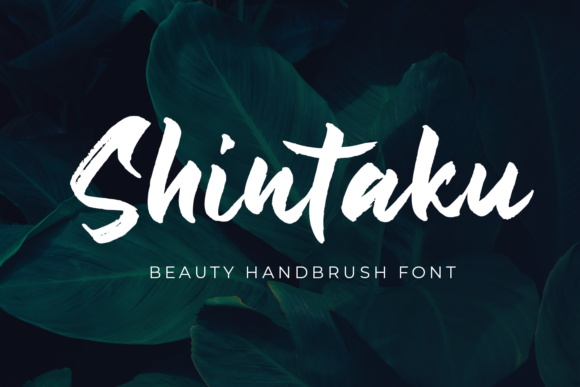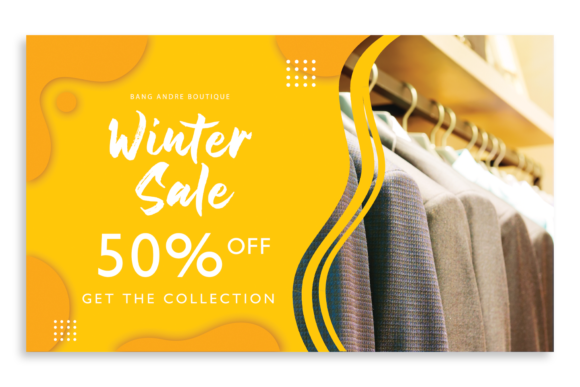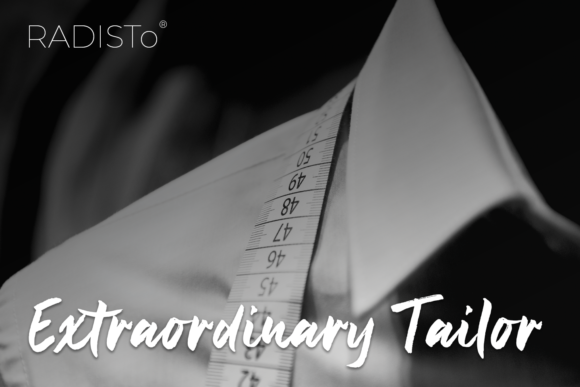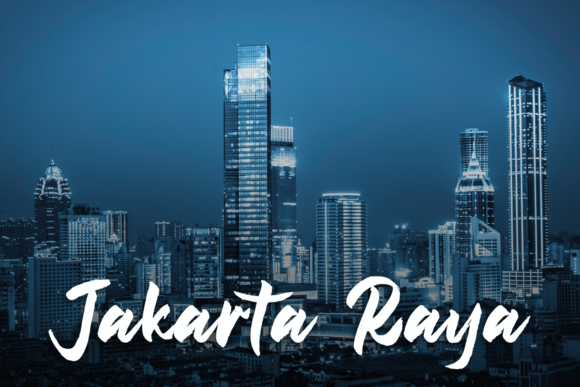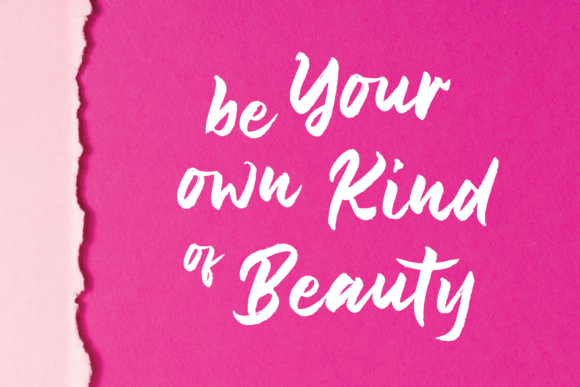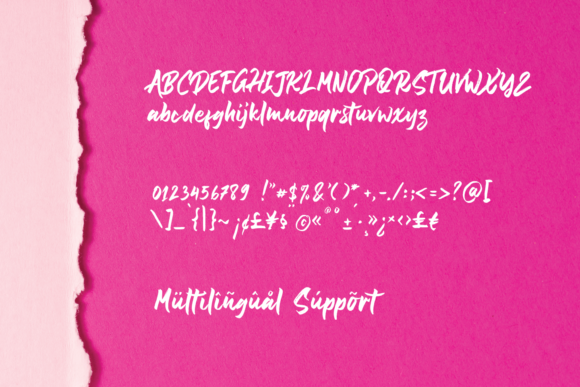
Shintaku Font
About Shintaku Font
Shintaku is a beautiful handdrawn script font that feels both authentic and elegant. It will deliver any message with charm and style!